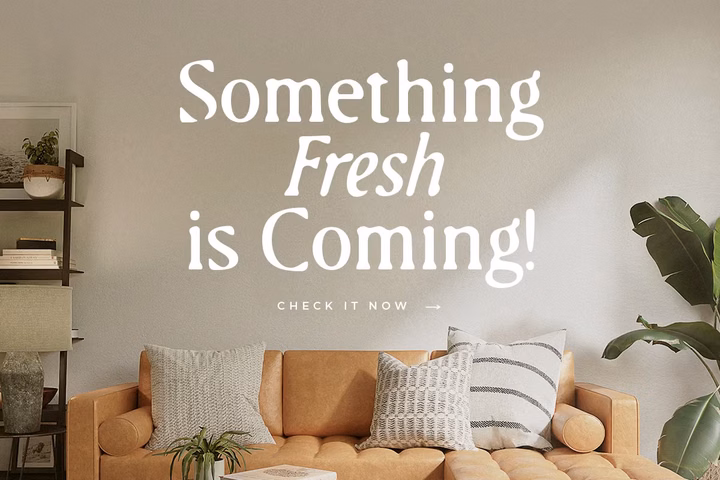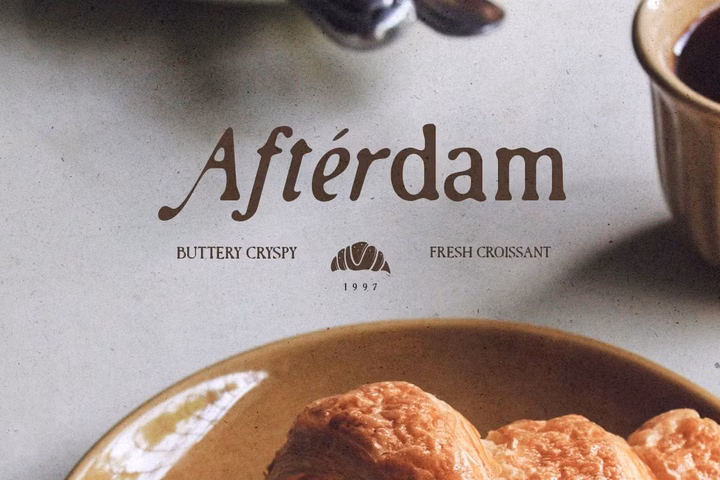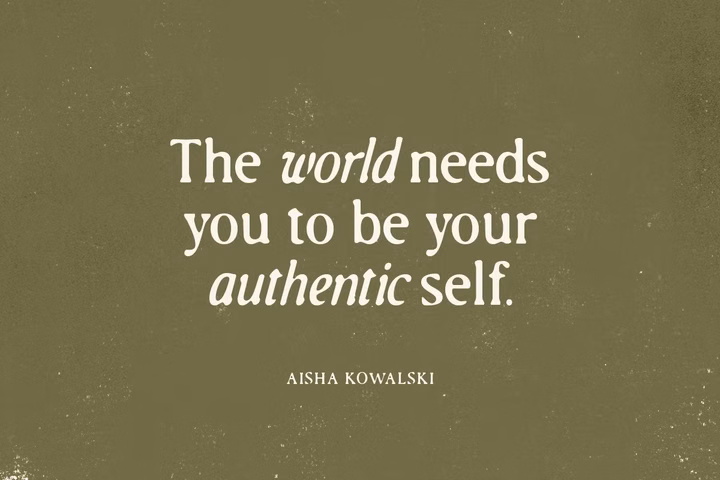
Introducing, Vintage Rhyme, a handmade serif with italic. Vintage Rhyme is a serif family that have natural and blurred organic looks. With regular and italic version, you can combine them to make your design more stunning. You can also use this font for any purpose such as logotype, wedding invitations, and any project that needs natural looks. This font also support multi language.